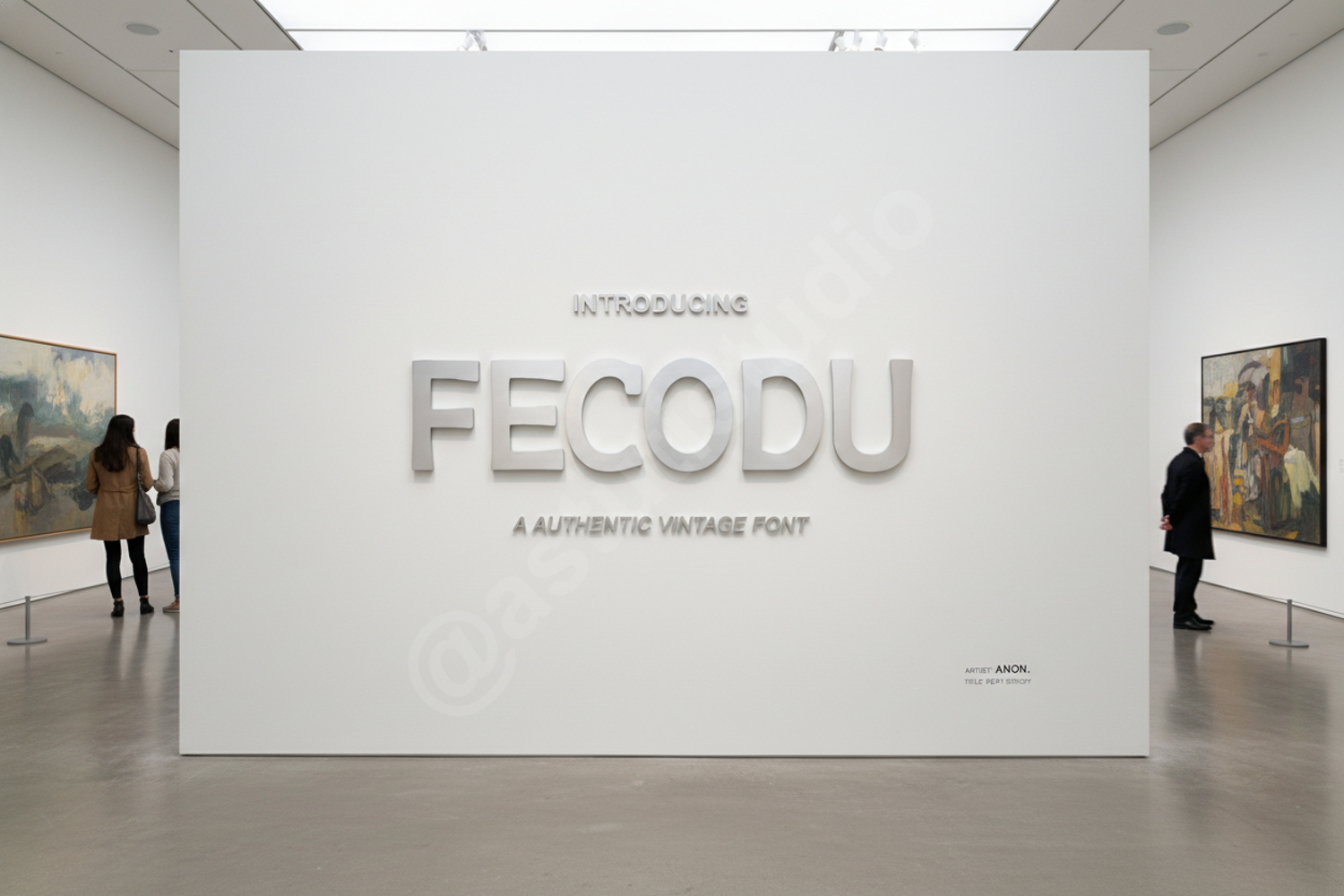
Fecodu - Elegant Modern Serif Typeface
Fecodu
Elevate your design projects with Fecodu, a premium serif typeface that seamlessly blends timeless sophistication with modern aesthetics. Designed for creators who demand excellence, Fecodu features clean lines, balanced proportions, and a touch of luxury that makes every character stand out. Whether you are working on a high-end brand identity or a minimalist editorial layout, this font provides the professional edge your work deserves.
- Full set of uppercase and lowercase characters
- Comprehensive multilingual support
- Standard ligatures for seamless flow
- Branding and Visual Identity: Create memorable logos and brand marks that exude authority.
- Editorial Design: Perfect for magazine headers, book covers, and sophisticated layouts.
- Wedding and Event Stationery: Add a touch of class to invitations, menus, and place cards.
- Luxury Packaging: Enhance the shelf appeal of premium products with refined typography.
- Digital Marketing: Build high-converting social media graphics and website headers.